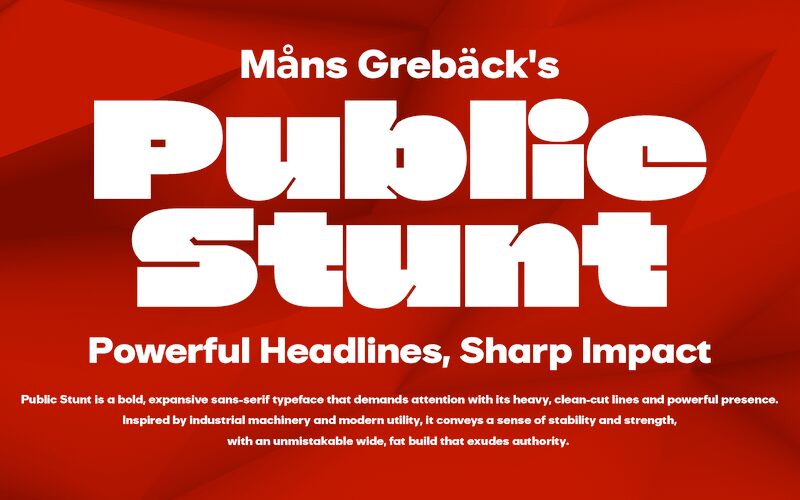
Public Stunt font by Måns Grebäck is a bold, expansive sans-serif typeface inspired by industrial machinery and modern utility. The heavy, clean-cut lines give it a powerful presence that demands attention. With its rounded geometric shapes and tech-inspired details, the font boasts a minimalist aesthetic perfect for modern designs.
This free sans serif font can be put to use in headlines, posters, advertisements, branding projects, packaging design, website headers, event promotions, editorial layouts, signage displays or any project that requires a strong visual impact. Let Public Stunt deliver your message with authority and style!